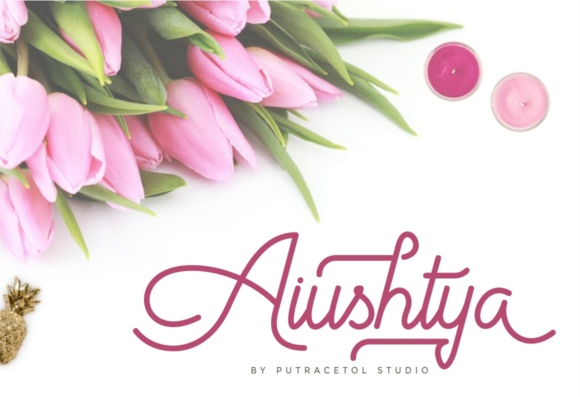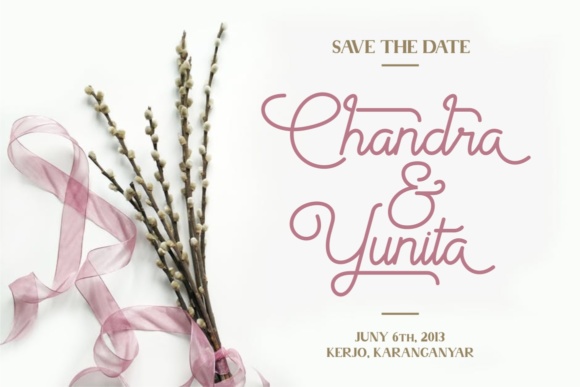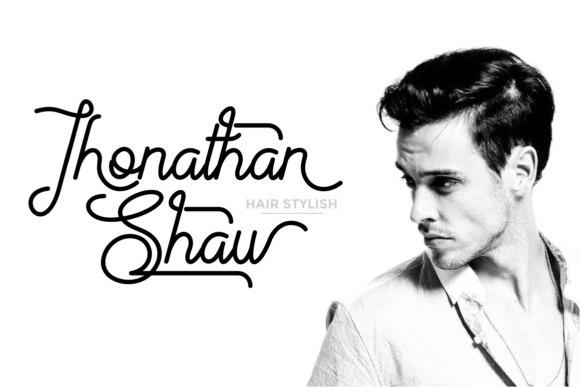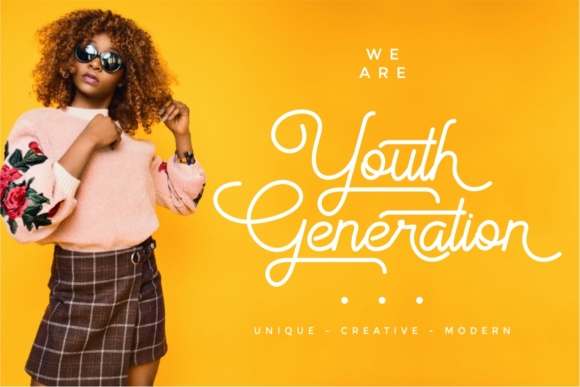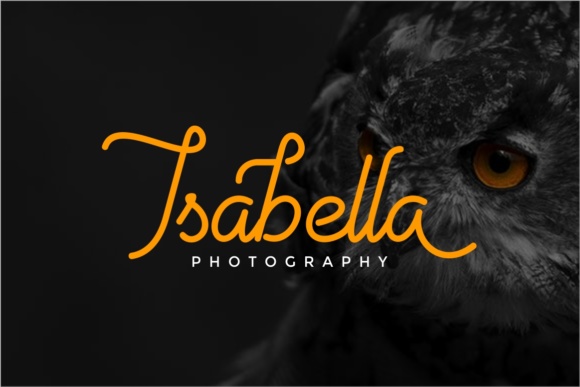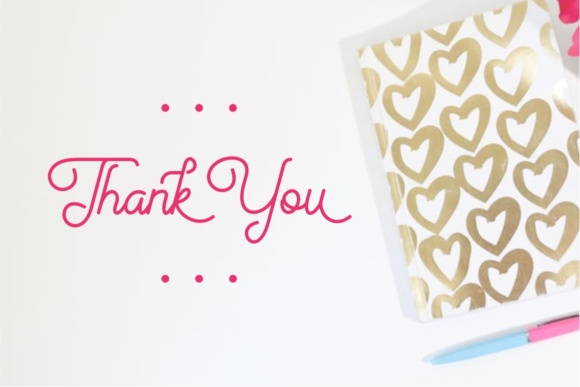
Aiushtya Font
About Aiushtya Font
Aiushtya is a monoline script typeface with smooth characters and an elegant and modern look. Aiushtya is suitable for logos, signatures, taglines, T-shirts, handwritten quotes, product packaging, posters, and much more!